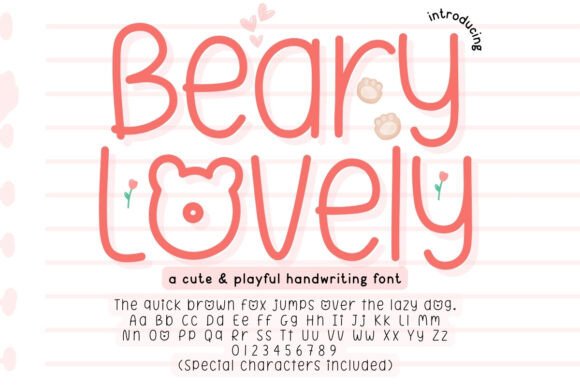
Beary Lovely Font: The Ultimate Cute and Playful Handwriting Font for Creative Projects
Are you looking for a font that adds a touch of whimsy and charm to your notes, planners, digital projects, and creative designs? Look no further than Beary Lovely, a delightful handwriting font with an adorable bear-inspired twist. In this article, we’ll explore the features and benefits of Beary Lovely, and how it can elevate your work to the next level.
Introducing Beary Lovely: A Cute and Playful Handwriting Font
Beary Lovely is a unique and playful handwriting font that combines the charm of handwritten letterforms with the cuteness of bear-themed accents. This font is perfect for anyone who loves bears, cute designs, and a touch of whimsy in their work. With its adorable bear-inspired details, Beary Lovely is sure to bring a smile to your face and make your projects stand out.
Key Features of Beary Lovely Font
- Playful handwritten style: Beary Lovely features a playful and handwritten style that adds a personal touch to your work.
- Bear-themed details: The font includes adorable bear-themed accents that make it perfect for anyone who loves bears and cute designs.
- Uppercase, lowercase, numbers, and special characters: Beary Lovely includes a wide range of characters, making it suitable for various creative projects.
Perfect for School Notes, Student Planners, and Digital Projects
Beary Lovely is an excellent choice for students, teachers, and anyone who loves to take notes, create planners, or work on digital projects. The font’s playful and cute style makes it perfect for:
- School notes: Add a touch of fun and personality to your notes with Beary Lovely.
- Student planners: Create colorful and engaging planners that make studying more enjoyable.
- Digital projects: Use Beary Lovely for your digital projects, such as presentations, social media graphics, and more.
Why Choose Beary Lovely Font?
With so many fonts available, why choose Beary Lovely? Here are a few reasons:
- Unique and playful style: Beary Lovely offers a one-of-a-kind font style that’s sure to make your work stand out.
- Cute and adorable bear-themed details: The font’s bear-themed accents add a touch of cuteness and charm to your work.
- Easily readable: Despite its playful style, Beary Lovely is easy to read, making it perfect for notes, planners, and digital projects.
- Versatile: This font can be used for various creative projects, from school notes to digital designs.
Tips and Ideas for Using Beary Lovely Font
Here are a few tips and ideas to get the most out of Beary Lovely:
- Mix and match with other fonts: Combine Beary Lovely with other fonts for a unique and playful look.
- Add bear-themed graphics: Use bear-themed graphics and illustrations to complement Beary Lovely and create a cohesive design.
- Experiment with colors: Try out different colors and color combinations to add an extra touch of personality to your work.
- Use for crafts and school projects: Beary Lovely is perfect for crafts, school projects, and other creative endeavors.
Beary Lovely is a one-of-a-kind font that adds a touch of whimsy, charm, and cuteness to your notes, planners, digital projects, and creative designs. With its playful handwritten style, adorable bear-themed accents, and versatility, Beary Lovely is perfect for students, teachers, and anyone who loves creative projects. Try Beary Lovely today and bring a touch of cuteness to your work!